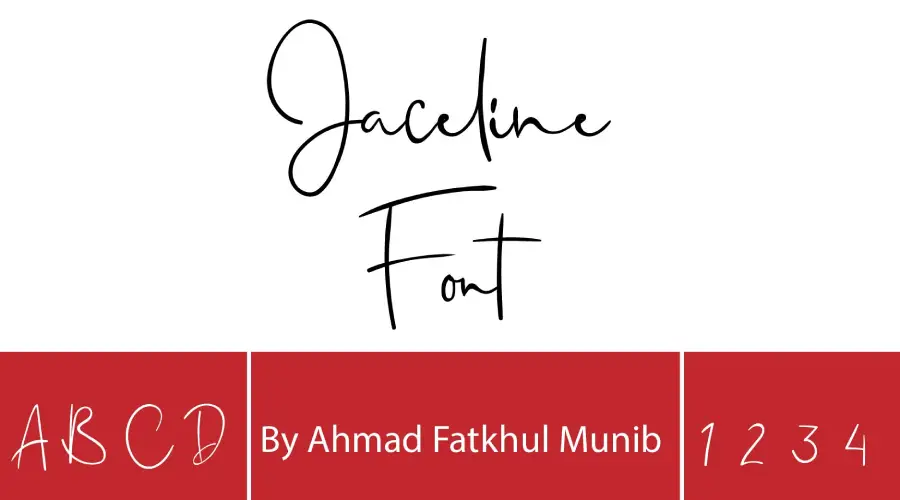
The Jaceline font is a beautiful handwritten font mimicking a handwritten ink style. It is known for its signature style and handwritten appearance. It was designed by Ahmad Fatkhul Munib and is offered by Magang Letterhend from Letterhend Studio. It was first published on DaFont on December 12, 2018.
It has uppercase and lowercase letters, numbers, and symbols. It’s particularly suited to signature style designs, photography logos, branding, social media content, fashion and apparel. This wide range of applicability is due to its unique handwritten style, which creates a distinct professional touch.
Jaceline font is a versatile and stylish font that mimics handwritten signatures. It is easy to use and suitable for various design purposes. The Jaceline Font Generator lets you customize and preview your texts on different platforms. Jaceline is an excellent choice for both professional and personal projects.
Jaceline is a single-style handwritten script associated with Magang Letterhend. Its light, connected movement works for signatures, invitations, short quotes, social graphics, and personal branding. It is less suitable for long paragraphs or very small text, where the fine joins and irregular baseline can reduce legibility.
Preview full names rather than a single capital. Check how repeated letters connect, whether punctuation fits the phrase, and whether the file contains every accented character you need. If a signature must remain readable at thumbnail size, increase spacing or choose a simpler handwritten face instead of enlarging only the first letter.